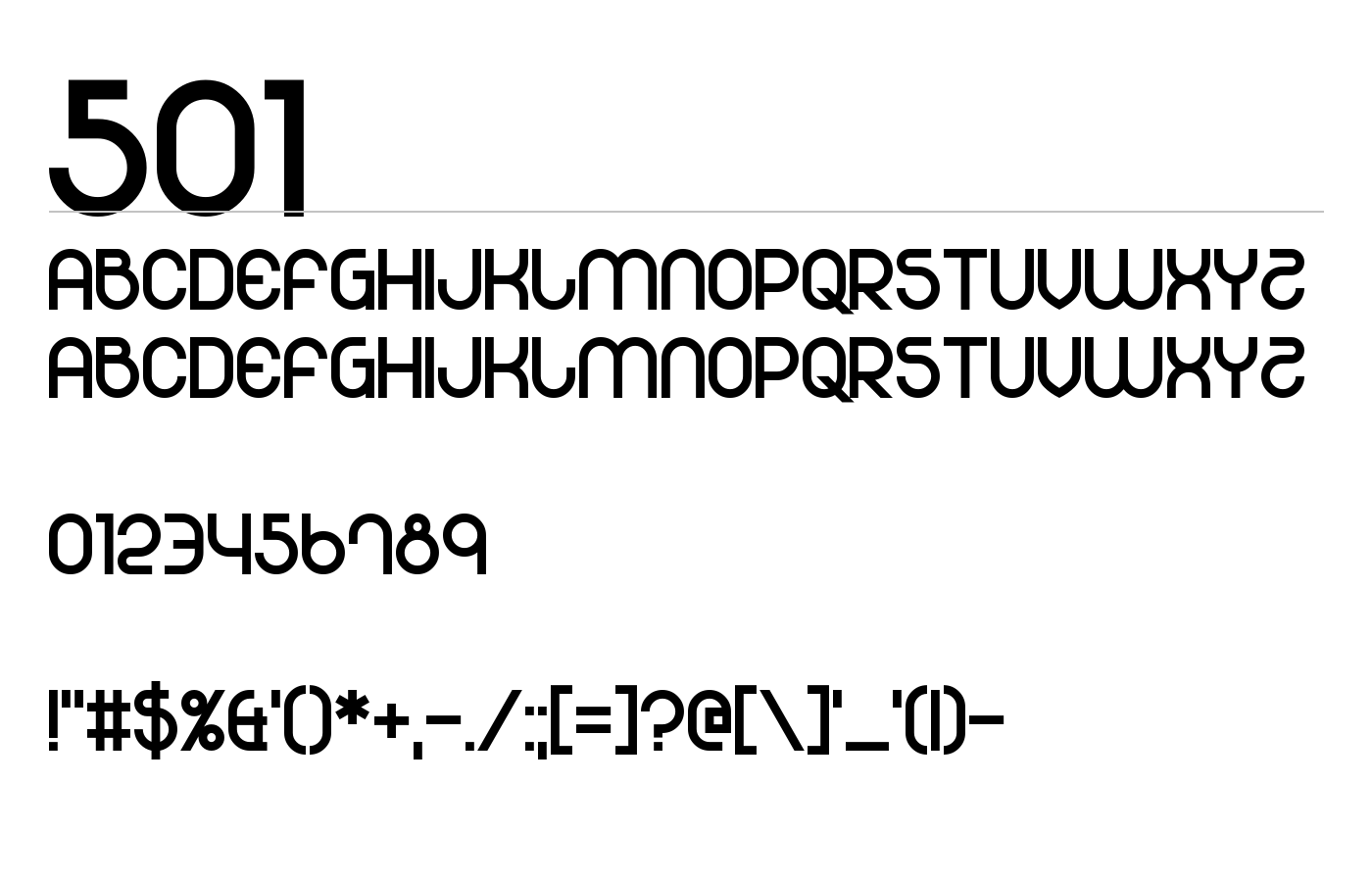
501 Font is a modern, geometric sans serif with a clean and slightly condensed structure, offering a balanced x-height that enhances readability. Its smooth, rounded strokes and unique letterforms give it a contemporary yet approachable feel, making it ideal for branding, headlines, and digital interfaces where clarity and style are key. This font’s distinctive character shapes and even spacing provide a fresh, professional look suited for tech, fashion, and creative industries.
501 Font